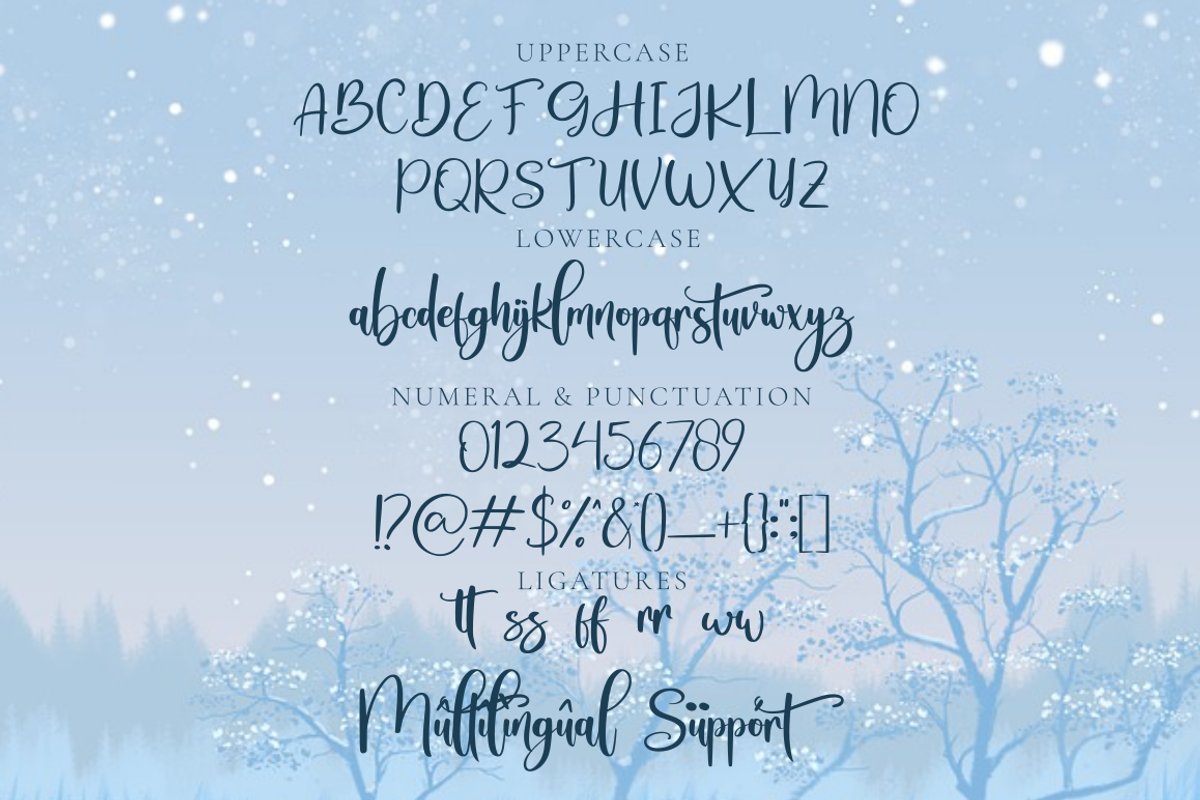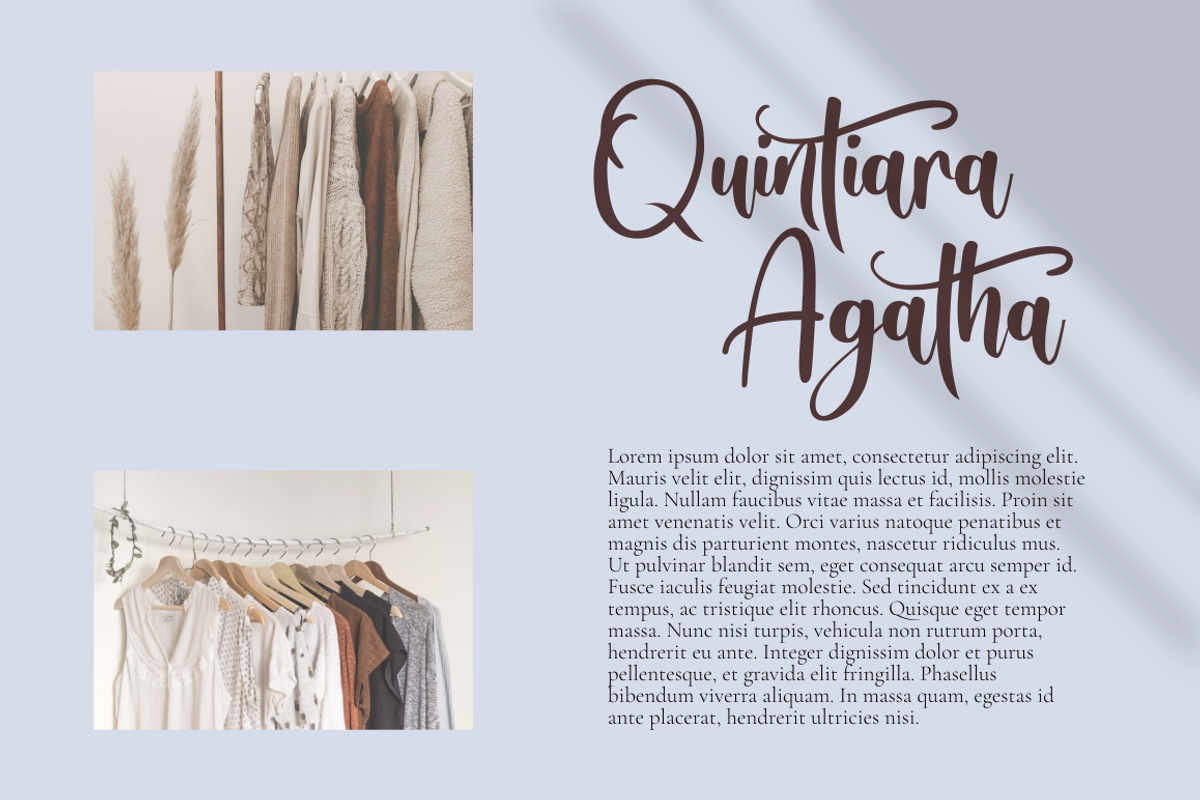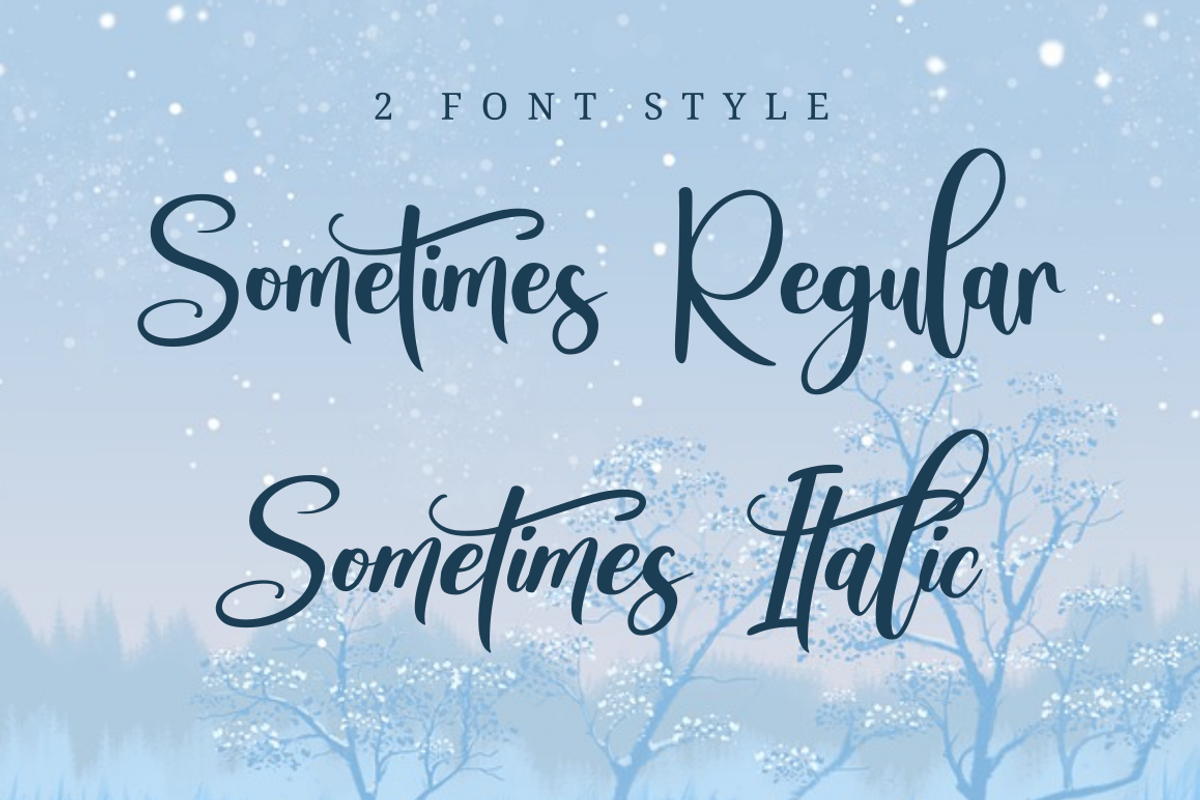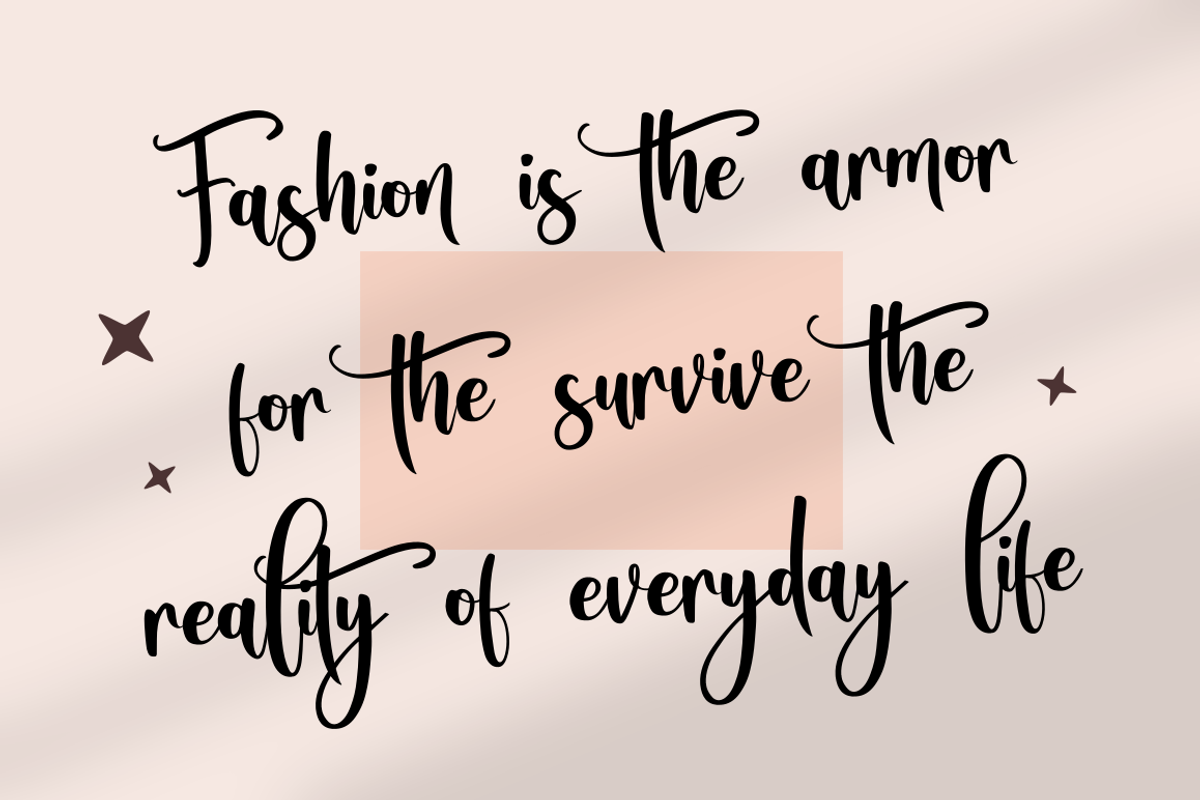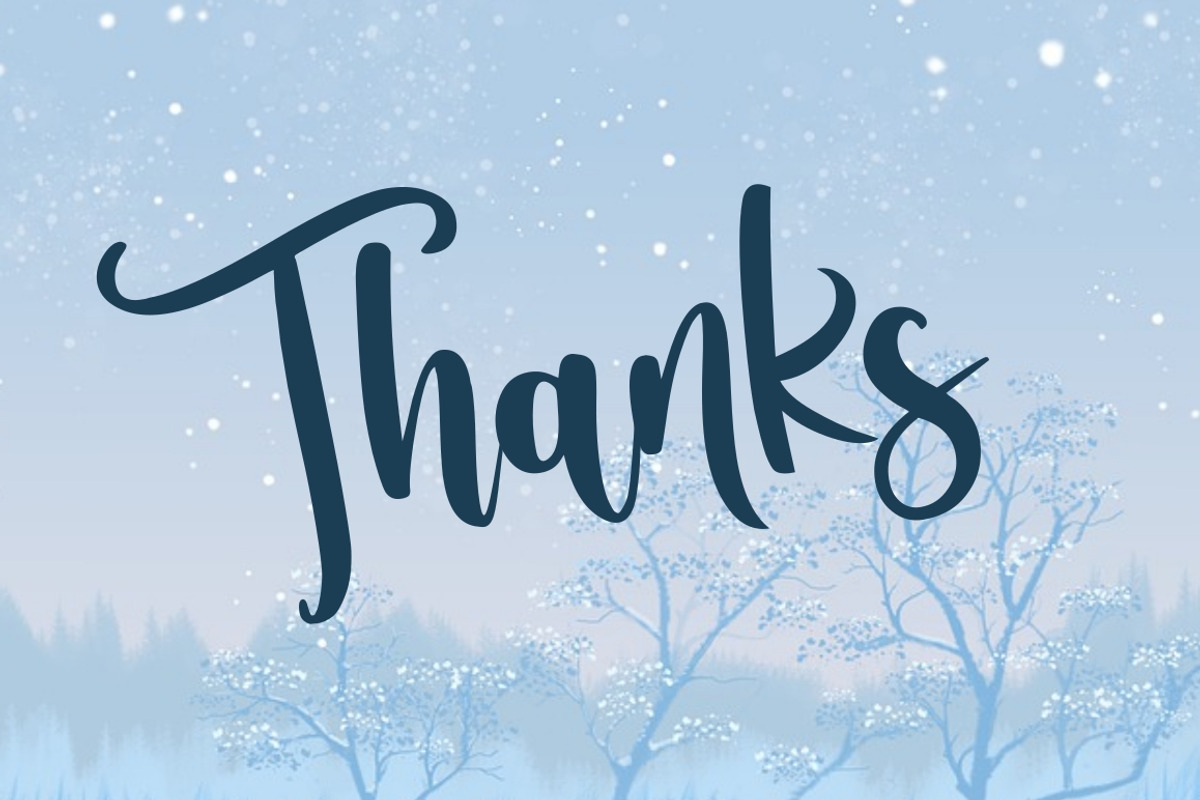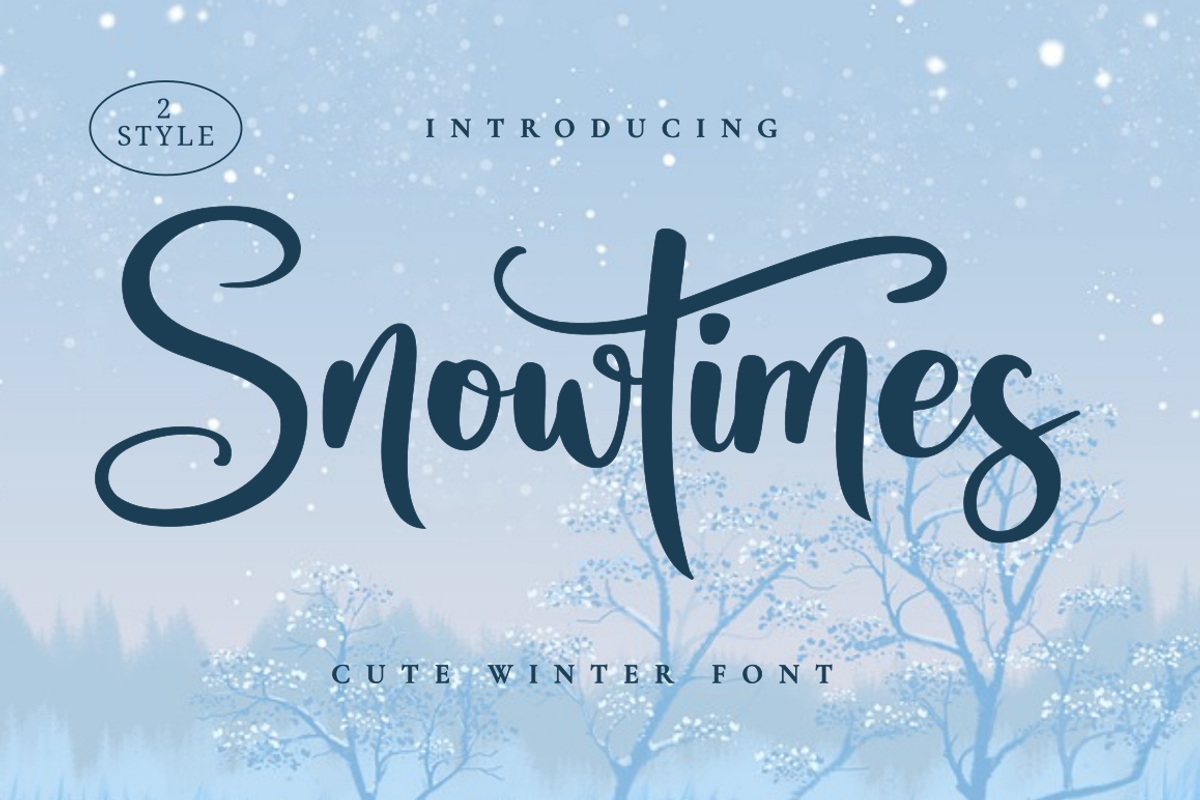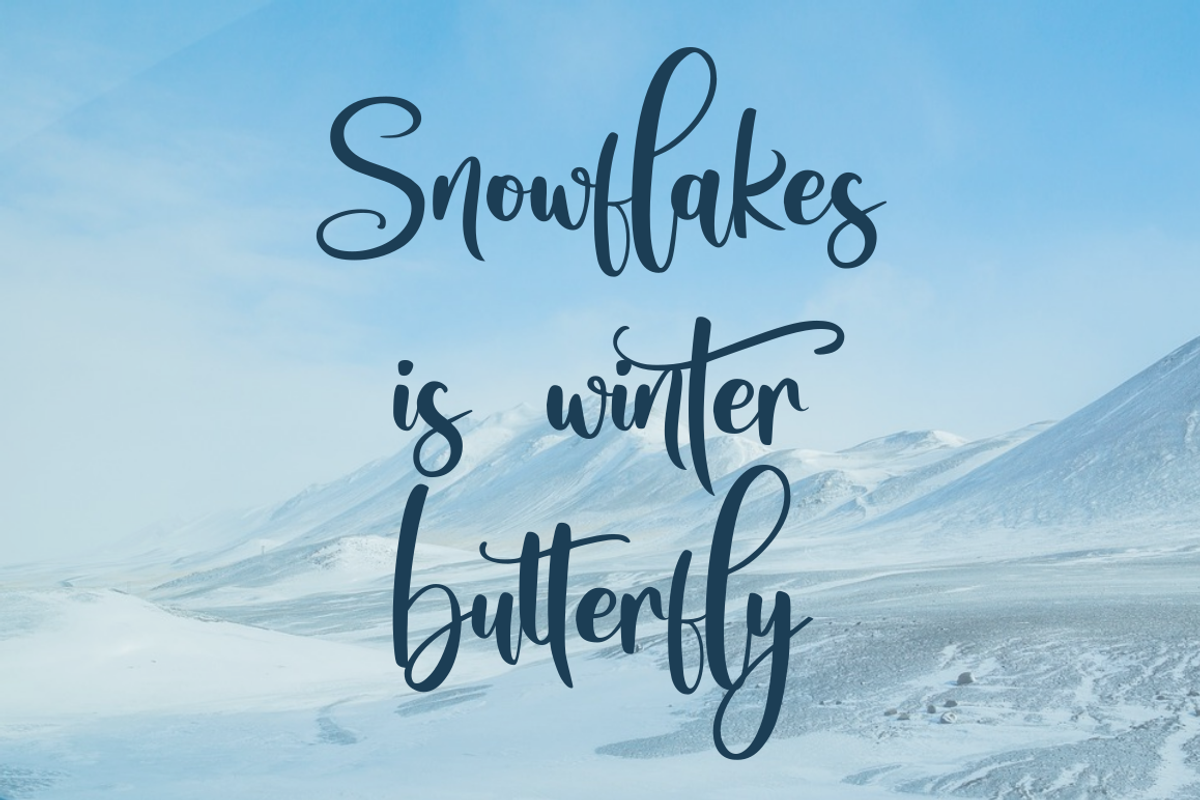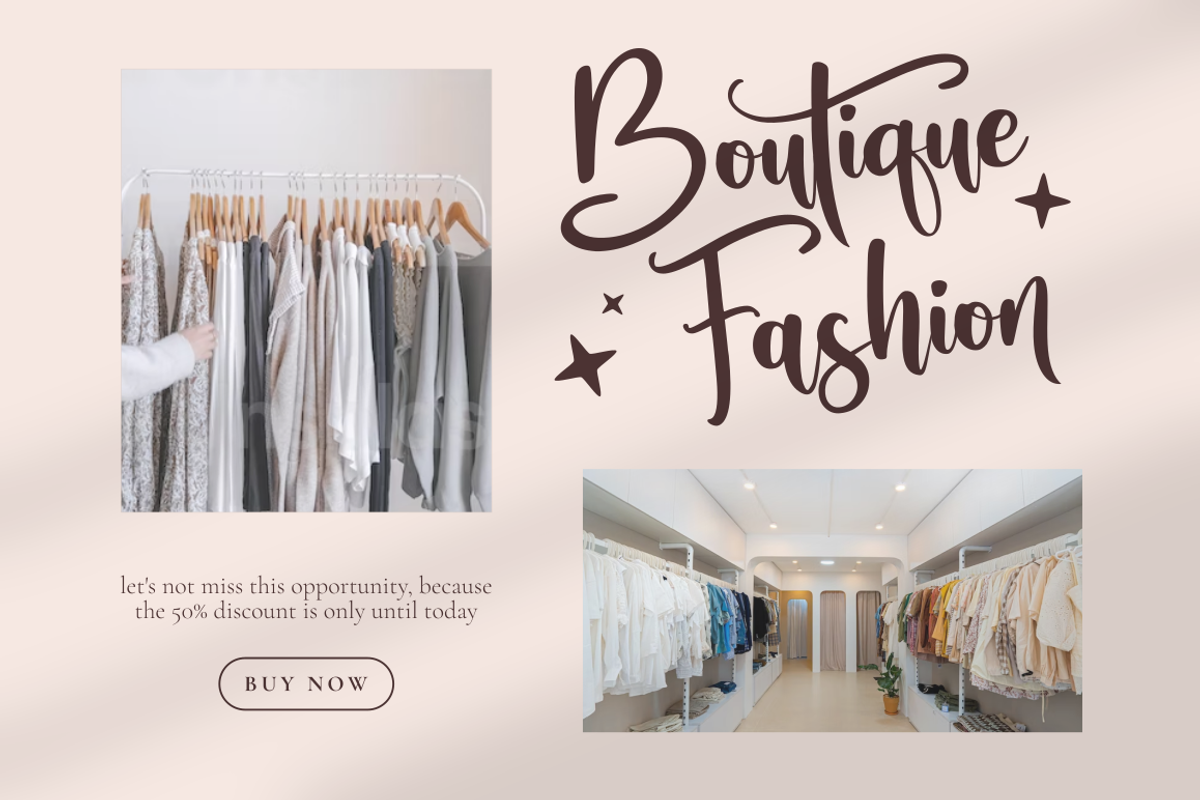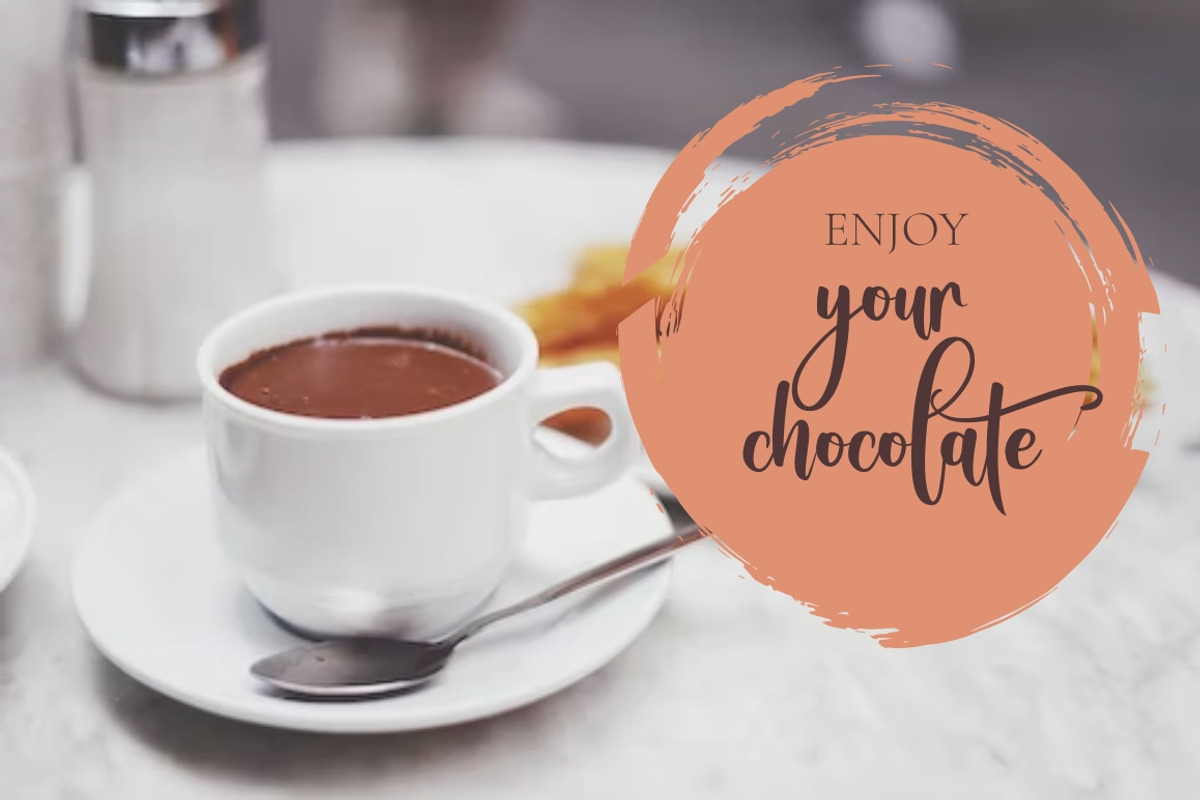
Snowtimes | A Bouncy Handwritten
Are you looking for quality and suitable fonts for greeting cards this winter? Snowtimes fonts the solution,
Snowtimes font is a font created using natural handwriting with a bouncy calligraphy style that looks beautiful and impressive,
There are two font styles available, namely Snowtimes Regular and Snowtimes Italic.
Besides being suitable for greeting cards, Snowtimes font is also perfect for various projects such as logos and branding, hand lettering, merchandise, advertisements, invitations, social media posts, video thumbnails, quotes and etc.
- More than 220 of glyphs (include Uppercase, Lowercase, Numerals & Punctuations,Ligatures )